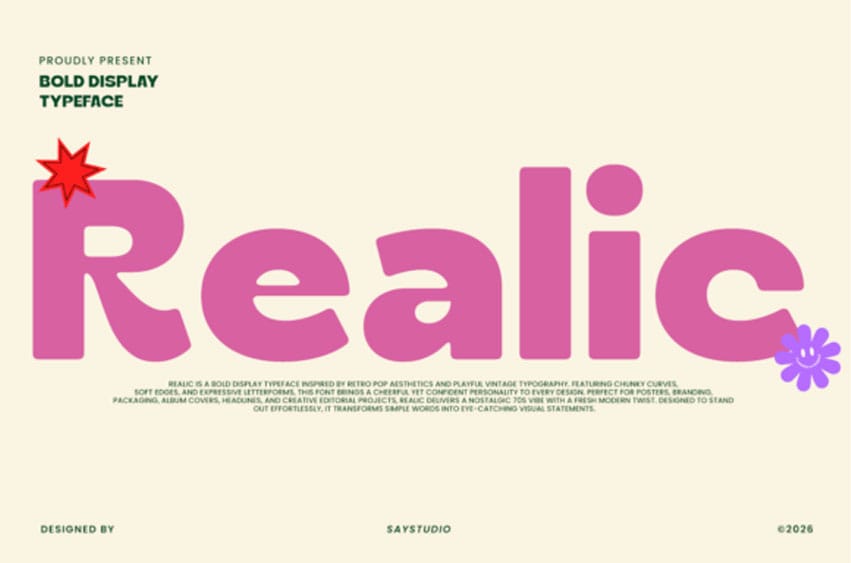
Realic Font is a bold retro display typeface designed to bring playful energy, confident branding, and eye-catching personality into every design project. Perfect for designers seeking standout typography, Realic works beautifully across posters, packaging, food branding, beverage labels, social media graphics, event promotions, merchandise, album covers, editorial headlines, website banners, and playful brand identities.
Whether you’re crafting energetic packaging, retro-inspired campaigns, modern poster graphics, or expressive branding systems, Realic delivers joyful bold typography with maximum visual impact.